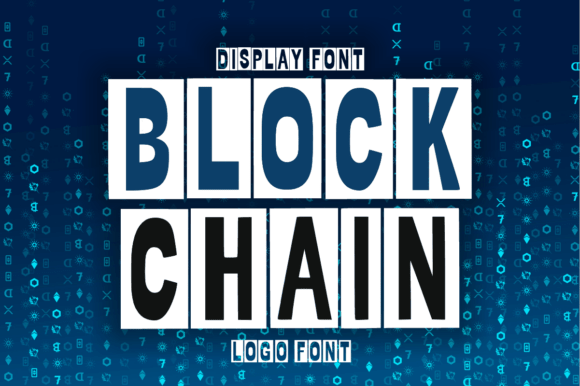
The Ultimate Guide to Blockchain Font: Elevate Your Designs with this Modern Marvel
With its sleek, modern design and versatile style, Blockchain Font instantly elevated my logo design to the next level. I knew right then and there that I had to share this fantastic find with fellow designers, crafters, and creative hobbyists. In this article, we’ll dive into the world of Blockchain Font, exploring its features, uses, and everything in between.
An Honest Review of Blockchain Font
• ✨ Modern and sleek design: Blockchain Font boasts a fresh, contemporary look that’s perfect for a wide range of design projects.
• ✅ Highly versatile: Whether you’re designing a logo, greeting card, or mug, this font adapts seamlessly to any theme or style.
• 💡 OpenType features: Blockchain Font comes with a range of OpenType features, including stylistic alternates and glyphs, giving you endless creative possibilities.
While Blockchain Font is an excellent choice for many design projects, there are a few minor quirks to be aware of:
• 🤔 Limited use of ligatures: While Blockchain Font does include some ligatures, they may not be as extensive as some users would like.
• ⚠️ Occasional kerning issues: As with any font, you may encounter some kerning issues, especially when using the font at smaller sizes.
The Backstory Behind Blockchain Font
While the true origins of Blockchain Font may be shrouded in mystery, it’s said that the font was designed by a team of creatives who were passionate about the blockchain and cryptocurrency revolution. Inspired by the futuristic and decentralized nature of blockchain technology, they set out to create a font that embodied the same spirit of innovation and progress.
Q: What type of projects is Blockchain Font best suited for?
A: Blockchain Font is a versatile font that can be used for a wide range of projects, from logos and branding to greeting cards, mugs, and more.
Q: Does Blockchain Font come with any OpenType features?
A: Yes, Blockchain Font includes a range of OpenType features, including stylistic alternates and glyphs, giving you endless creative possibilities.
Q: Is Blockchain Font suitable for body text?
A: While Blockchain Font is primarily designed as a display font, it can be used for body text in certain contexts. However, it’s recommended to use a clear and readable font for longer blocks of text.